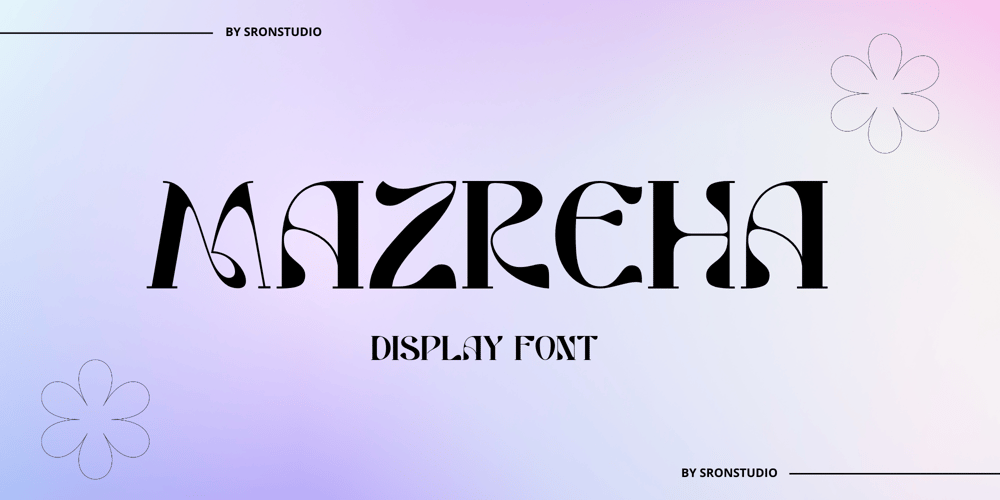
Mazreha Font Family was designed by Muhamad Yusron Billah and published by Sronstudio. Mazreha contains 1 styles and family package options. Mazreha – Display Font comes with an elegant and modern touch this font is perfect for branding, invitation, stationery, wedding designs, social media posts, advertisements, product packaging, product designs, label, photography, watermark, special events, and more.Features: Uppercase and lowercase letters Lowercase Swashes Alternates Ligatures Multilingual, numerals, and punctuation